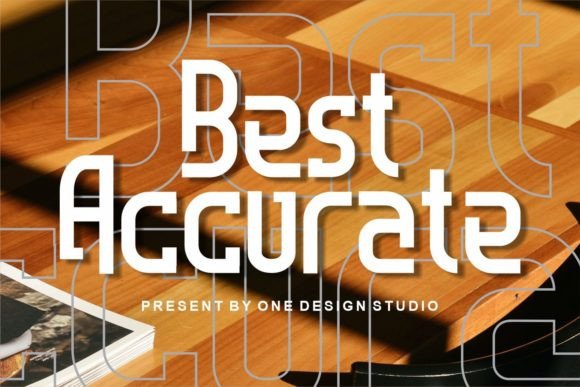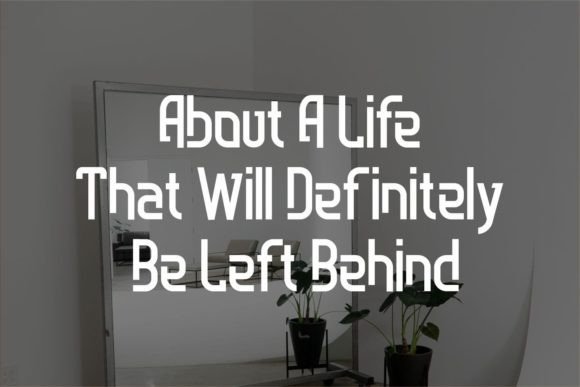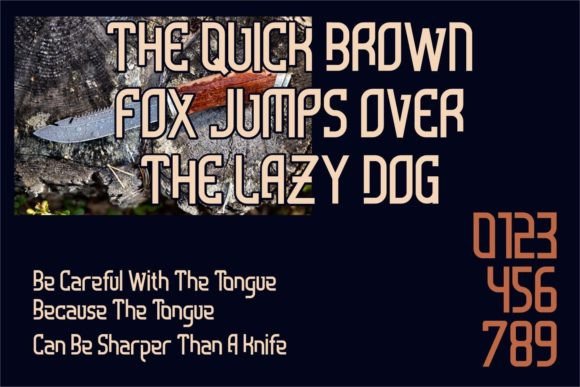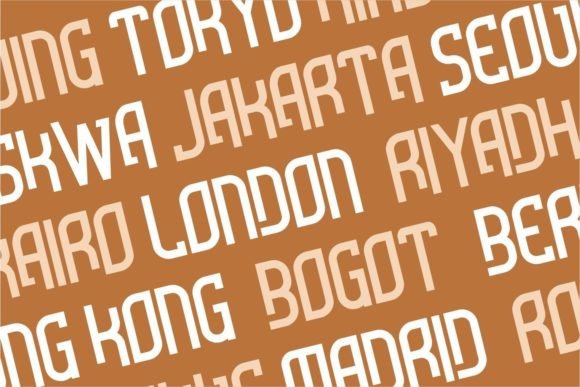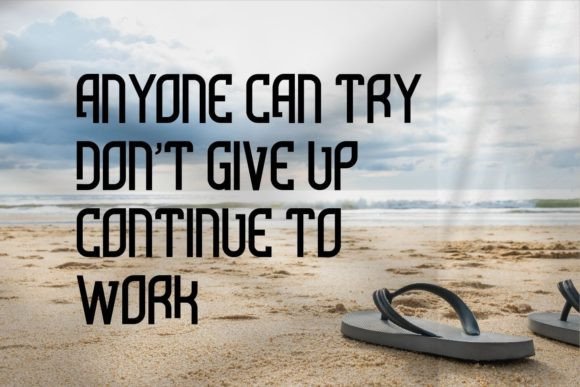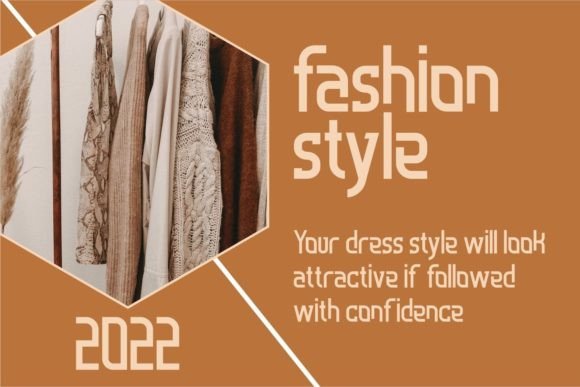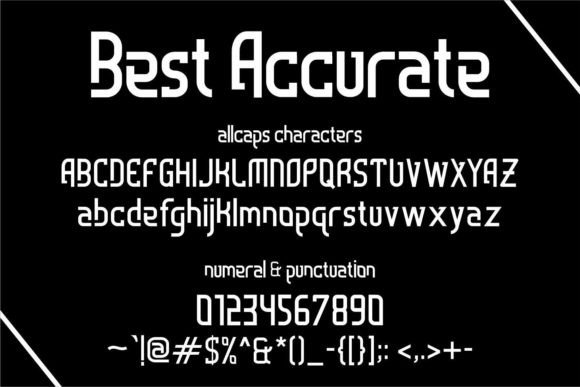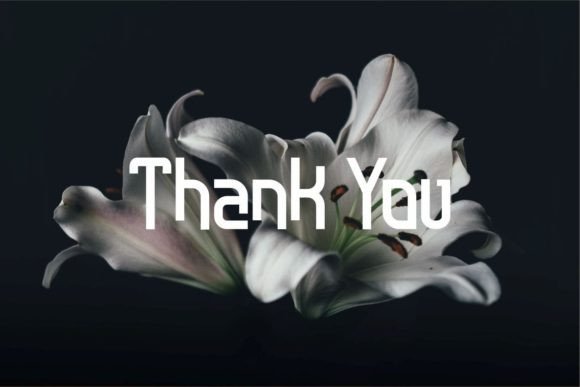
Best Accurate
Best Accurate: A Luxurious New Slab Serif Font
Best Accurate is a brand new slab serif font that brings luxury and uniqueness to your designs. This evolutionary typeface works perfectly for many projects, from titles and logos to posters and paragraphs. Moreover, its unique anatomy helps create beautiful, memorable designs that leave a lasting impression on your audience.
Key Features of Best Accurate
• Luxury Design: Offers an upscale and refined look.
• Unique Anatomy: Features special letterforms for enhanced beauty.
• Versatile Use: Works well for both titles and body text.
• Strong Personality: Helps designs stand out and be remembered.
Best Uses for Best Accurate
Thanks to its versatile nature, Best Accurate works especially well for:
When using Best Accurate in your designs, keep these tips in mind:
• Try it for both headlines and body text to create unity.
• Use it in titles and subtitles for a consistent look.
• Test different sizes to find the perfect fit for your project.
• Mix it with other fonts to create interesting contrasts.
To sum up, Best Accurate is an excellent choice for designers seeking a luxury slab serif font that works well across many uses. Its unique anatomy and versatility make it perfect for various projects. Whether you’re creating titles, designing logos, or laying out paragraphs, Best Accurate offers the perfect blend of beauty and readability.
Furthermore, Best Accurate’s distinctive design helps it shine in many different settings. For instance, from posters to large paragraphs, this font can lift your projects with its special style. Also, its ability to work well in both titles and body text makes it a valuable tool for creating cohesive designs.
In conclusion, Best Accurate truly lives up to its name by offering both beauty and accuracy in design. Its versatility across different uses shows how well it can fit various creative needs. Therefore, for those wanting to add a touch of luxury to their work, Best Accurate can enhance any project with its unique style. Ultimately, it’s perfect for designers aiming to make a lasting impression across many different kinds of creative projects.